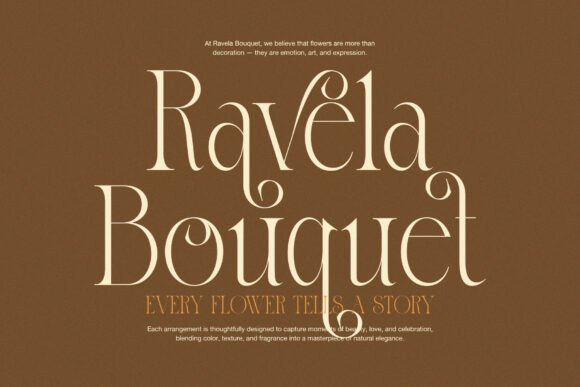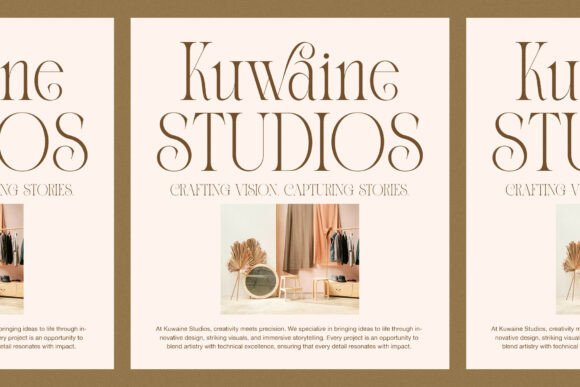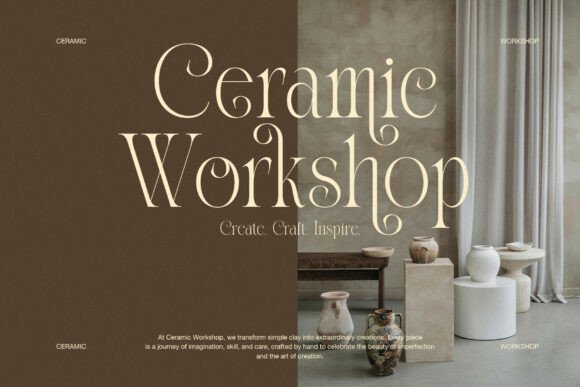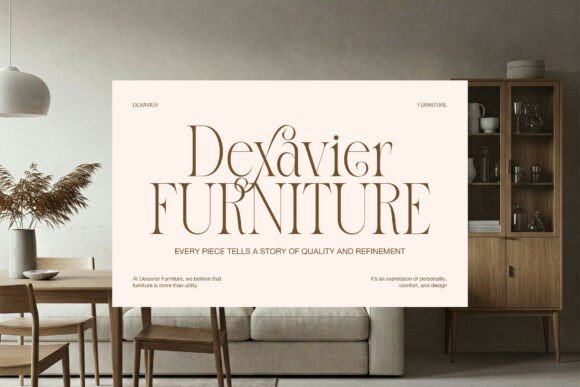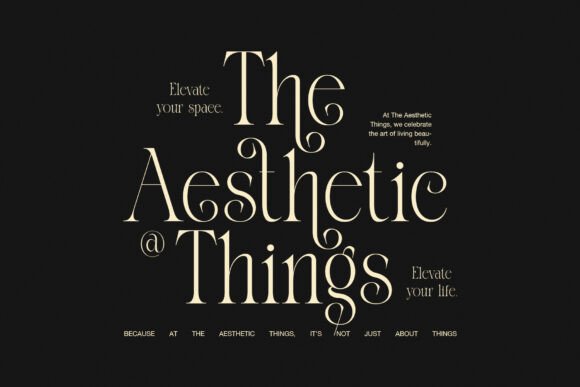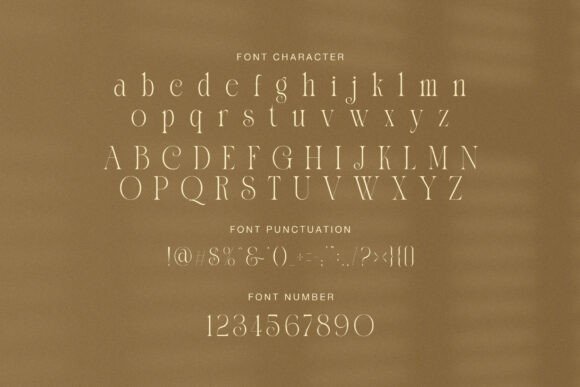
Introduction to Molgin Font Font
Fonts play a crucial role in design, and the Molgin Font font is a typeface that brings both character and versatility to any project. Whether you’re working on a branding project, a website, or a print design, the Molgin Font font offers a unique style that can elevate your work.
Molgin is an elegant serif display font created to express beauty, emotion, and refined character.
Inspired by editorial design and modern luxury aesthetics, this font combines graceful curves with confident serif structures As a result, Molgin feels timeless while still appearing fresh and expressive across contemporary projects.
Key Features of Molgin Font Font
Why Choose Molgin Font Font?
The Molgin Font font is more than just a typeface – it’s a design tool that helps you communicate your message with style and clarity. Its unique character set and versatile design make it suitable for a wide range of applications, from elegant invitations to bold headlines.
With its carefully crafted letterforms and balanced proportions, the Molgin Font font ensures readability and visual appeal across all mediums.
What makes Molgin Font font special?
The Molgin Font font stands out with its unique design, exceptional readability, and versatility across various design applications.